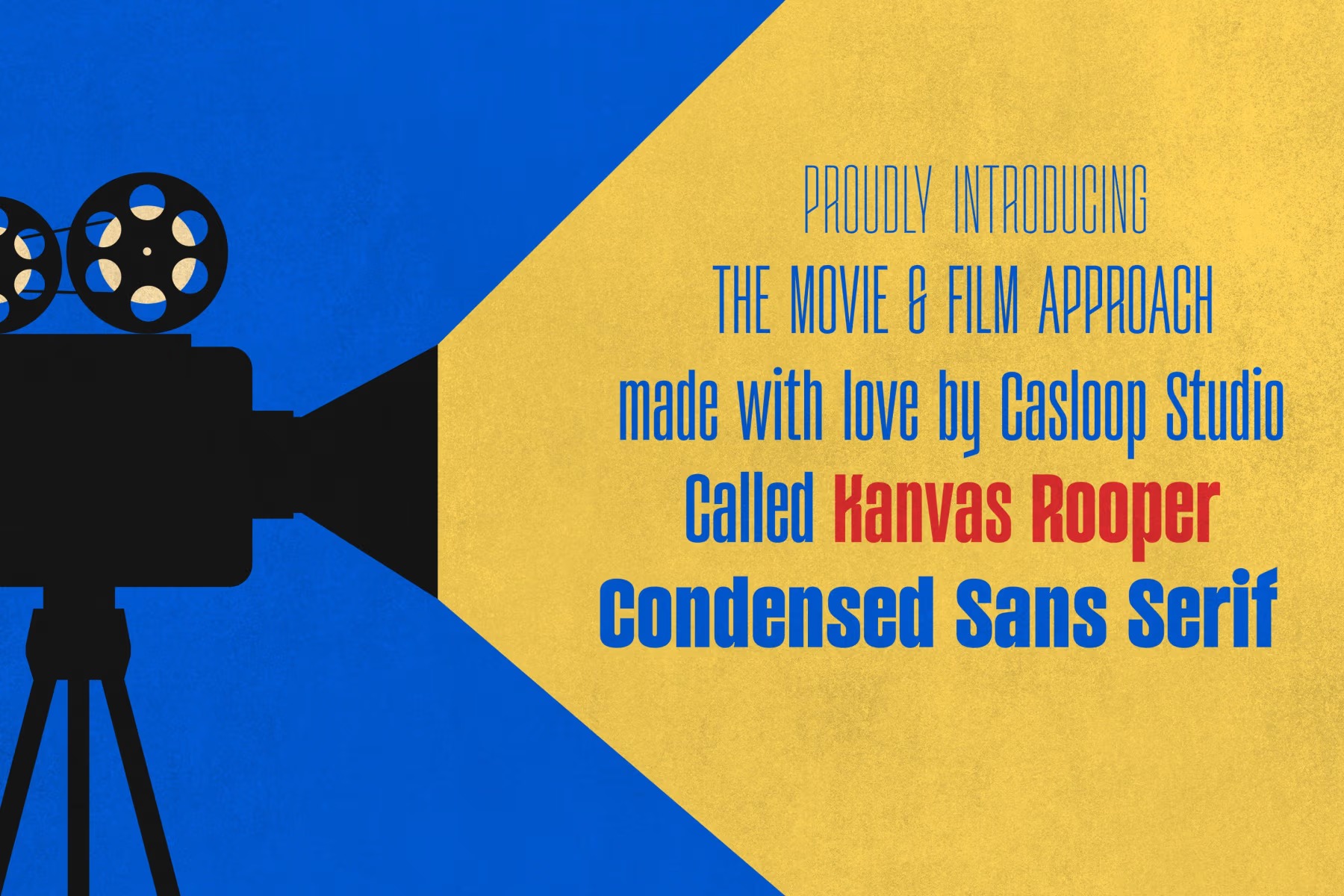
Kanvas Rooper Font Family
Kanvas Rooper Font Family is a professionally designed typeface that delivers clarity, structure, and consistent performance across various design applications. Kanvas Rooper, the Condensed Sans Serif font designed for businesses aiming for excellence. Tailored for impact, this typeface effortlessly captures attention and is perfect for projects demanding a touch of Brave and Bold Shape.
Key Features:
Brave and Bold Condensed Sans Serif Design: Immerse yourself in the sophistication of Kanvas Rooper’s Condensed Sans Serif aesthetic, a favorite among business professionals.
Business Versatility: Ideal for a wide array of projects, ensuring your designs make a lasting impression.